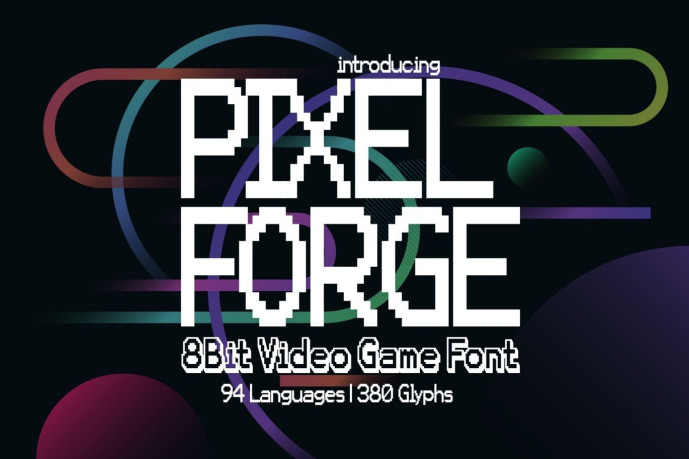
Pixel Forge Font
Designer: epdesigns
Pixel Forge Font is a bold, grid-based, pixel-based display font designed for creators who appreciate retro precision combined with modern depth. Built from clean pixel geometry and paired with a powerful 3D version, this typeface makes an instant impact for both nostalgic and futuristic designs.
The standard pixel style reflects the unmistakable charm of classic arcade typography, 8-bit typography, and the beginnings of digital typography, while the included 3D version adds dimension, weight, and a visual flair, perfect for striking titles and logos.
Pixel Forge is ideal for games, posters, branding, album covers, YouTube thumbnails, technical visuals, and digital art. Whether you’re designing something playful, nostalgic, or boldly modern, this font gives your work an engineered, hammered pixel feel.